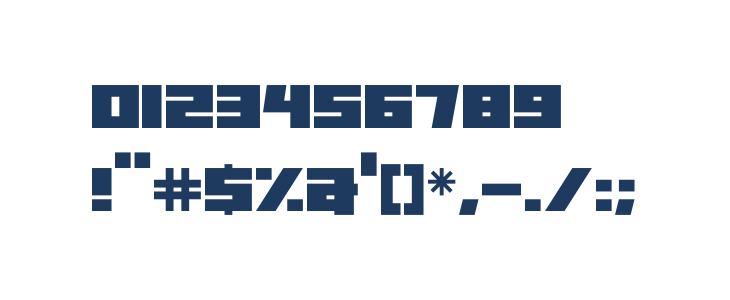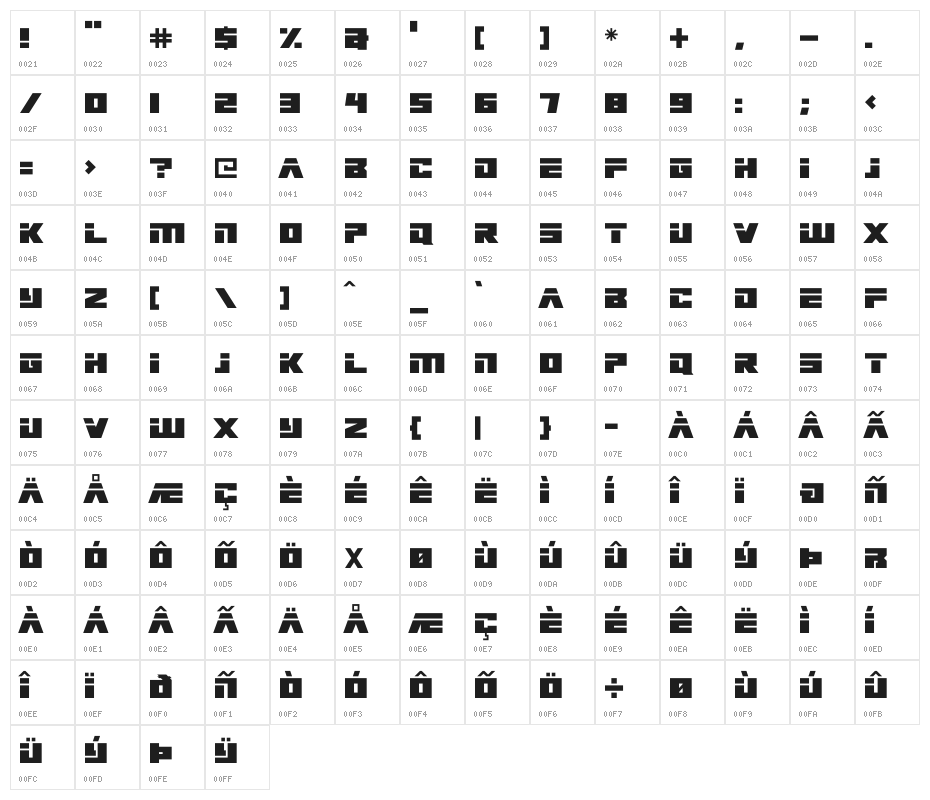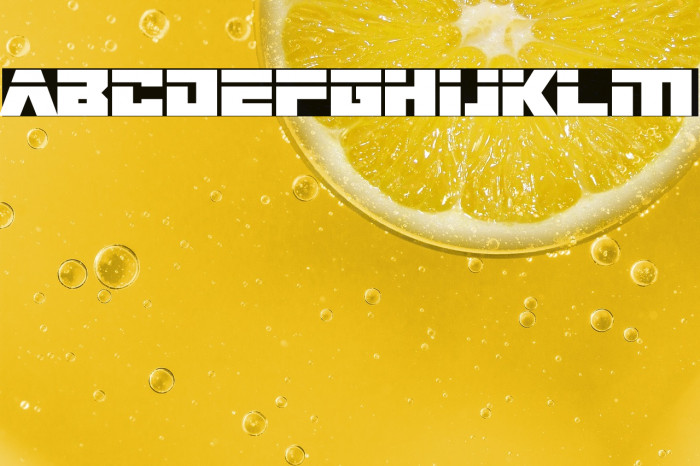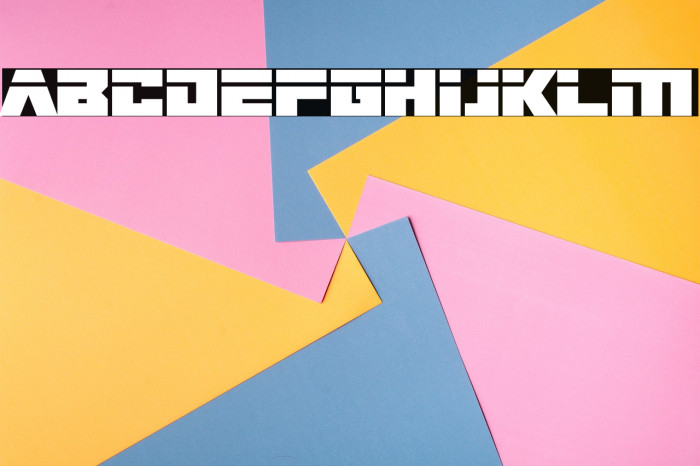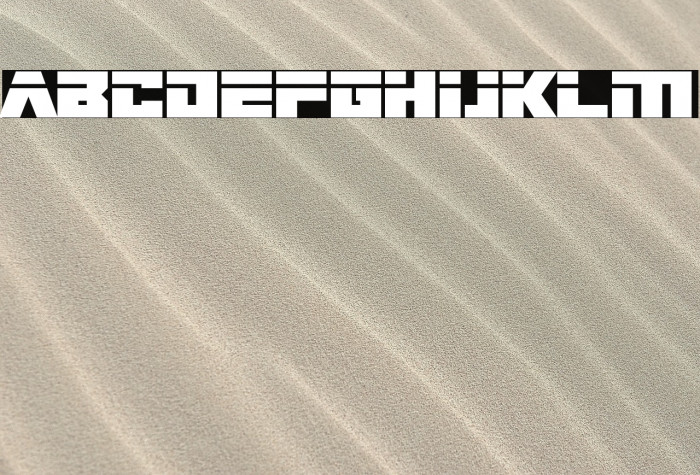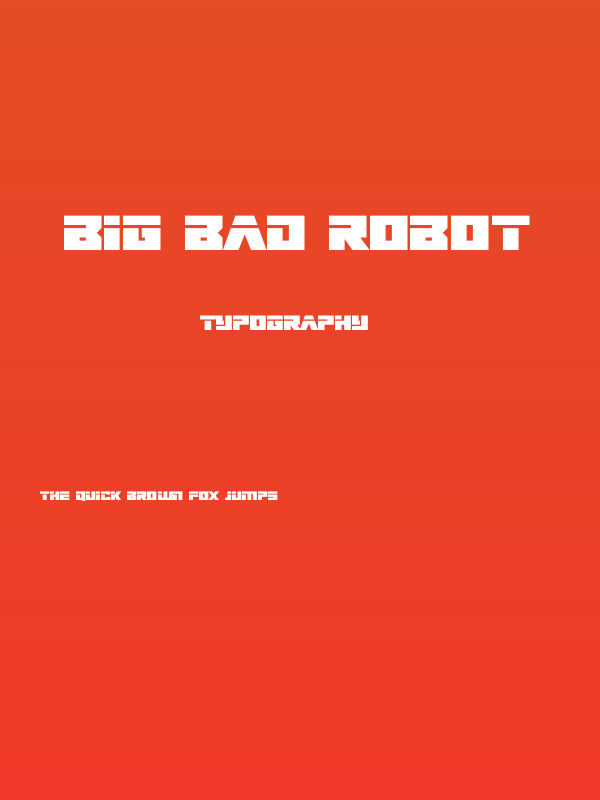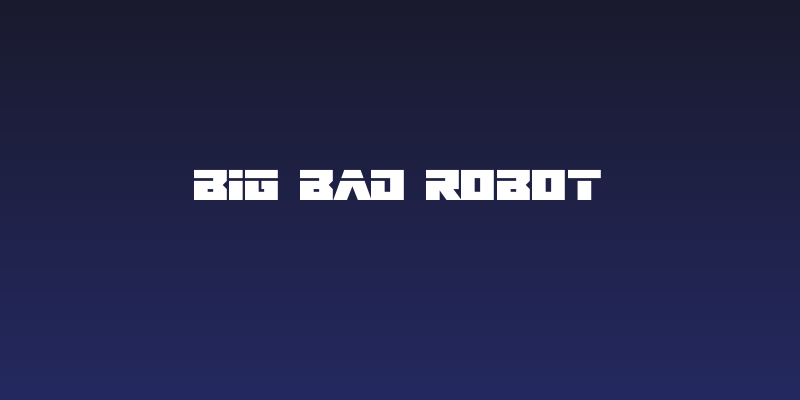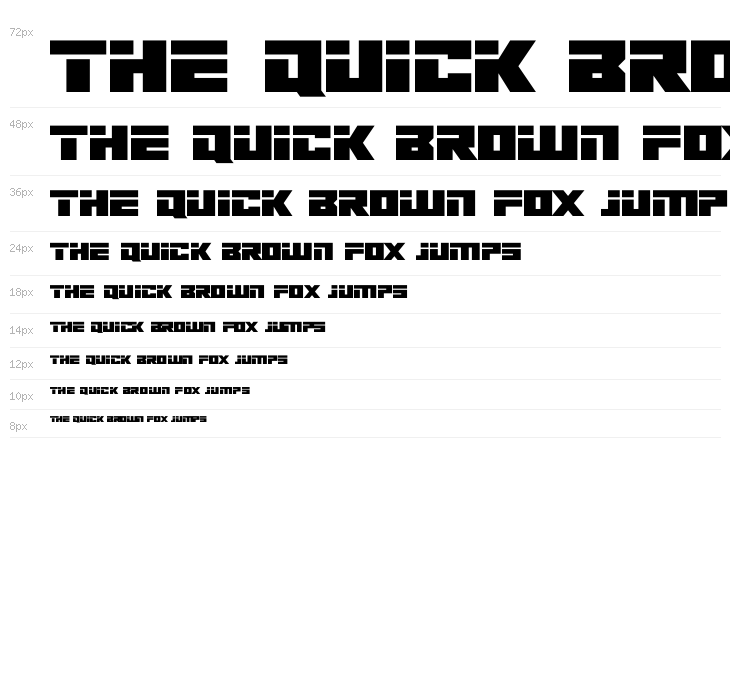
Big Bad Robot Font
Big Bad Robot Description
This font features a bold, geometric design with a futuristic and robotic aesthetic. The characters are constructed with sharp angles and straight lines, giving them a blocky and industrial appearance. The uppercase and lowercase letters maintain a consistent style, with the lowercase mirroring the uppercase in form. The numerals and special characters follow the same design principles, ensuring uniformity across all glyphs. This font's strong visual impact makes it suitable for projects that require a modern and edgy look.
| Proposed Projects | Ideal for sci-fi themed designs, video game titles, tech branding, and posters. |